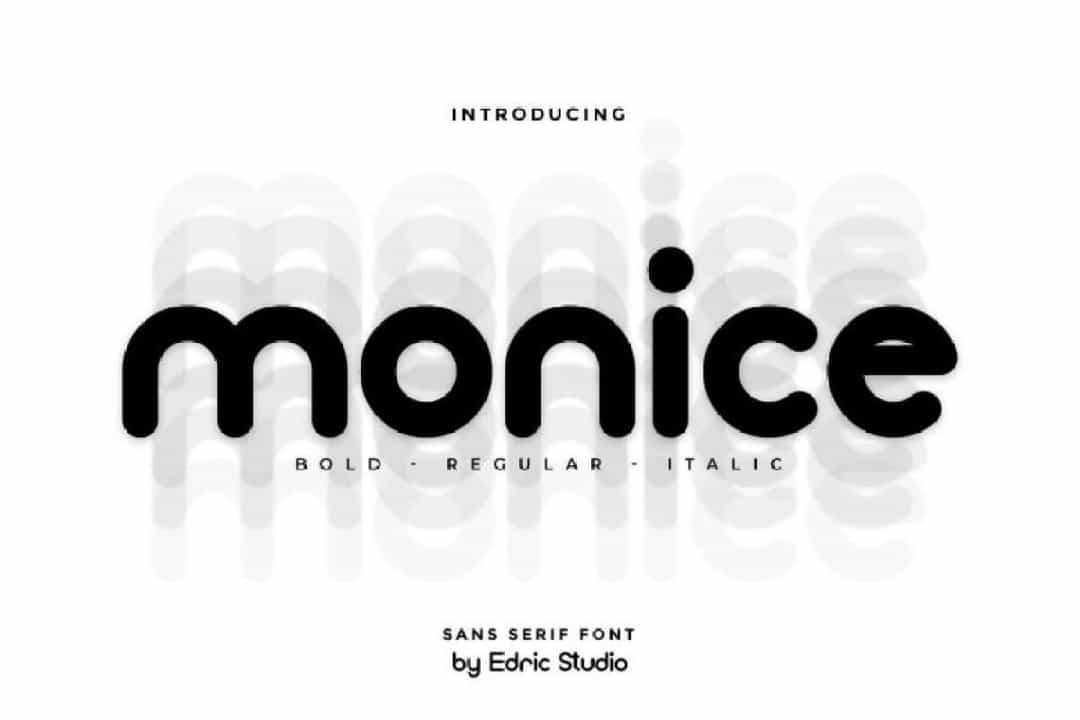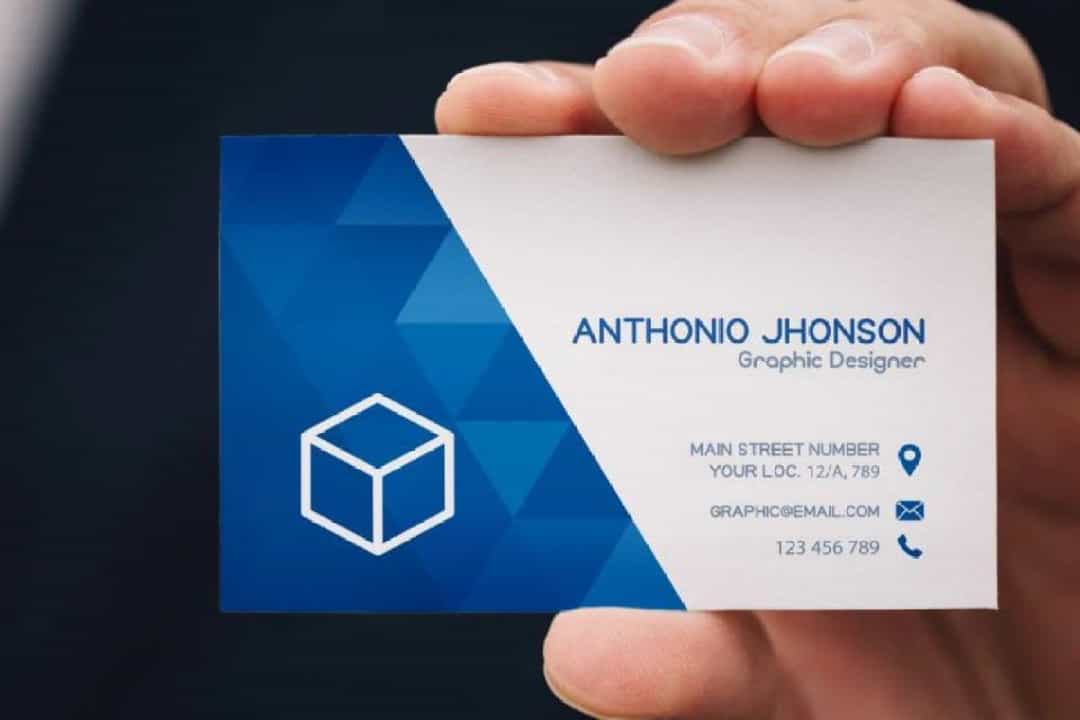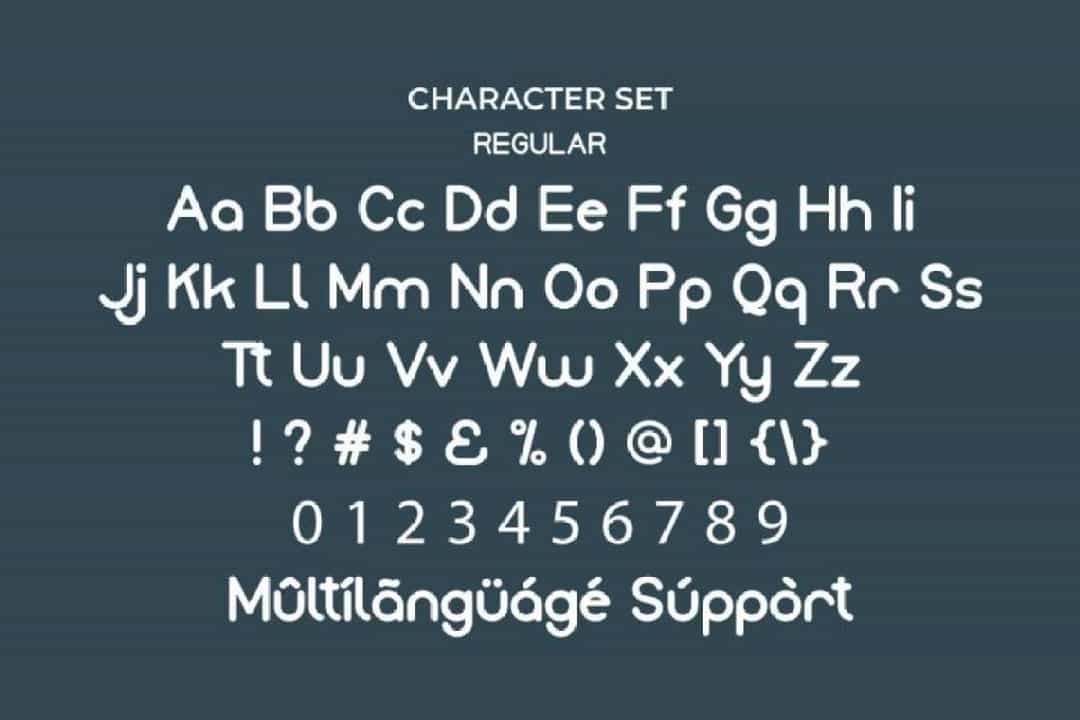
Monice is a modern sans serif font designed with an effortless casual aesthetic. It embodies elegance contemporary chic minimal and minimalist. Handmade at our Studio located in Indonesia by Renata Suci and Sarah Suci designers/artists behind its creation, Monice font makes an impactful statement about how contemporary culture lives with minimal elements.